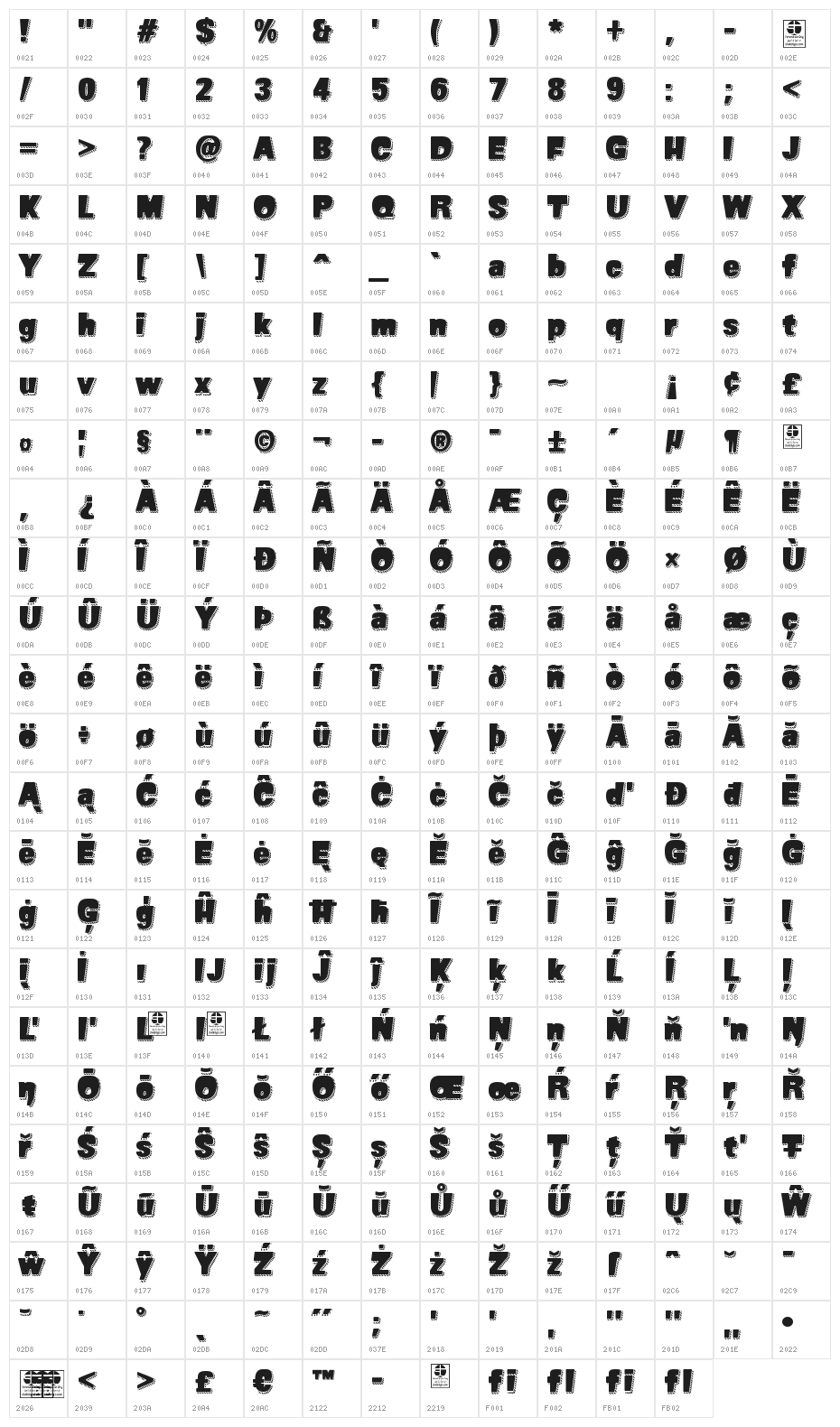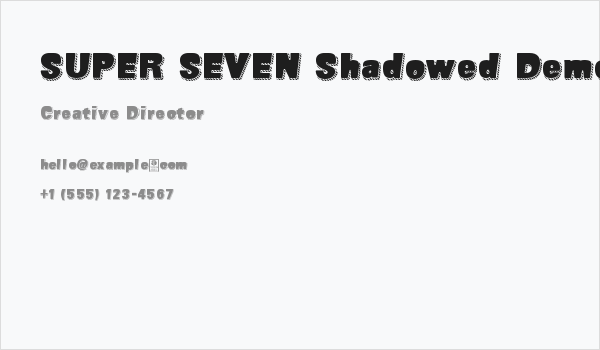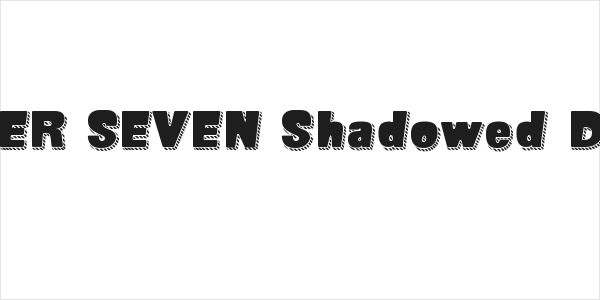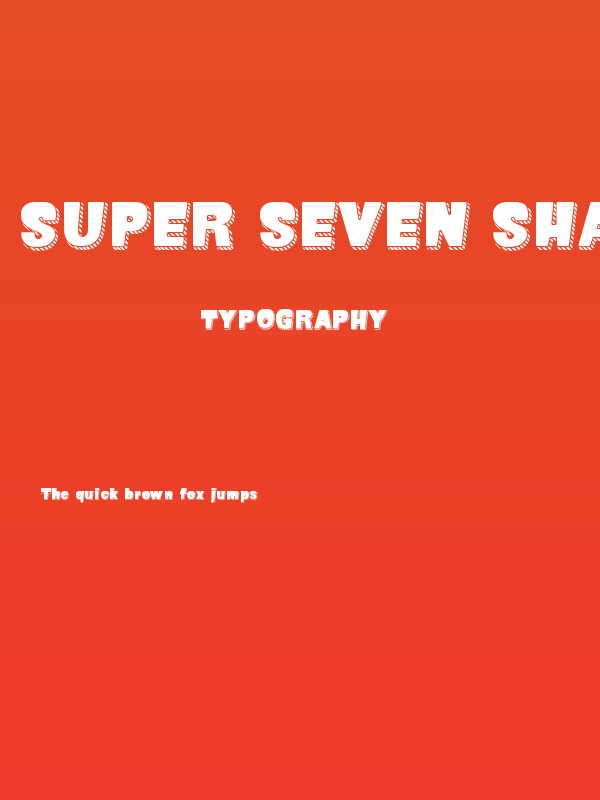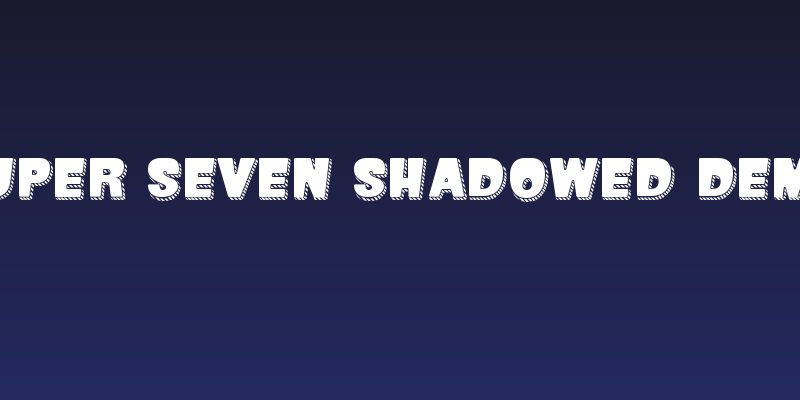
SUPER SEVEN Shadowed Demo Font
SUPER SEVEN Shadowed Demo Description
This font features bold, uppercase and lowercase letters with a distinct shadow effect that gives it a three-dimensional appearance. The characters are thick and sturdy, with a playful yet impactful style. The shadowing adds depth and a sense of movement, making it stand out in any design. The font includes a full set of numerals and a variety of special characters, all maintaining the same bold and shadowed aesthetic. Its unique style is both eye-catching and versatile, suitable for a range of creative projects.
| Proposed Projects | Ideal for posters, headlines, logos, and any design requiring a bold, attention-grabbing font. |